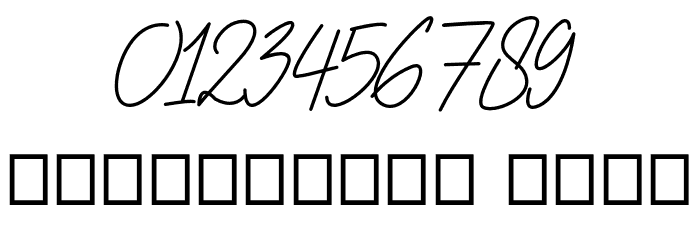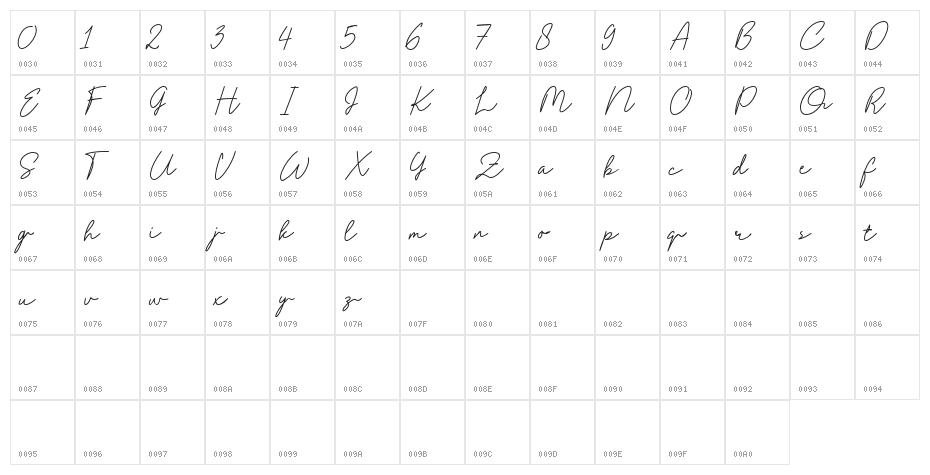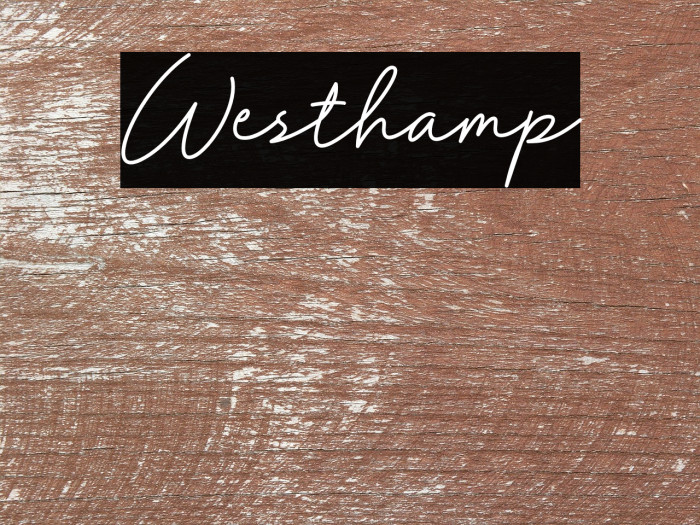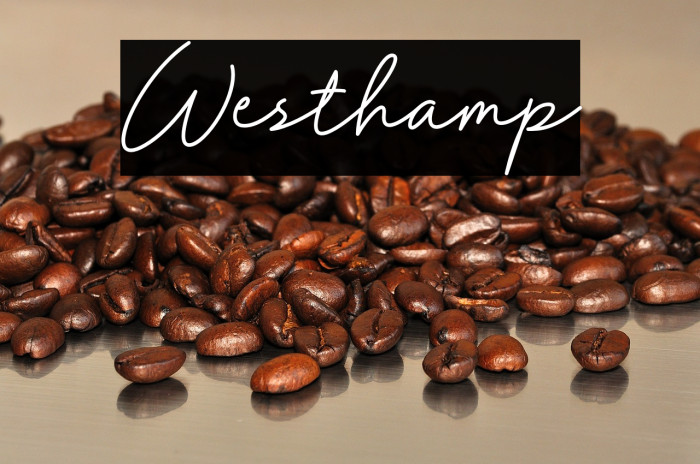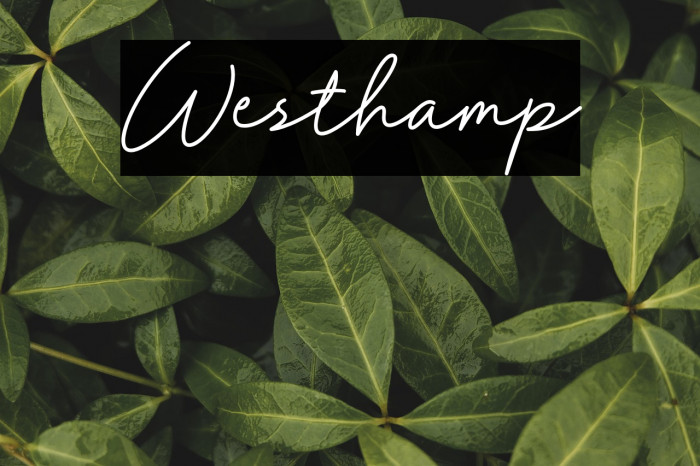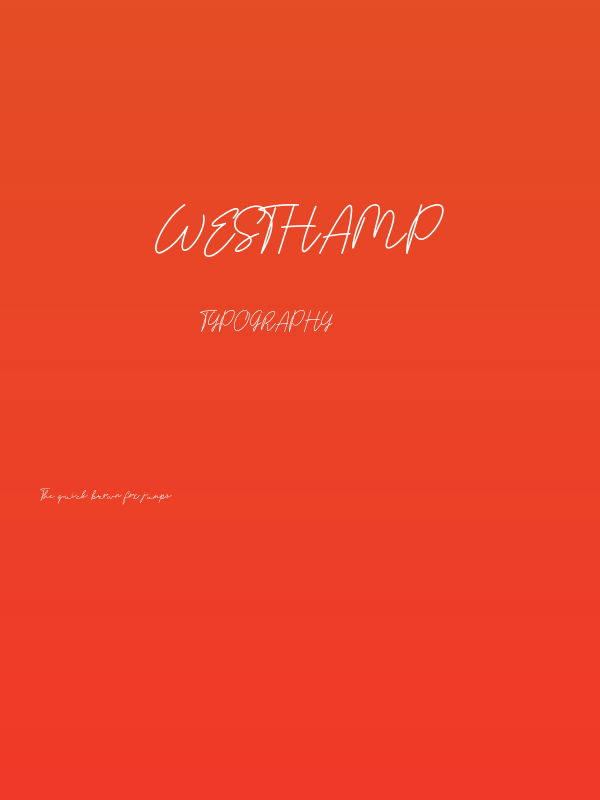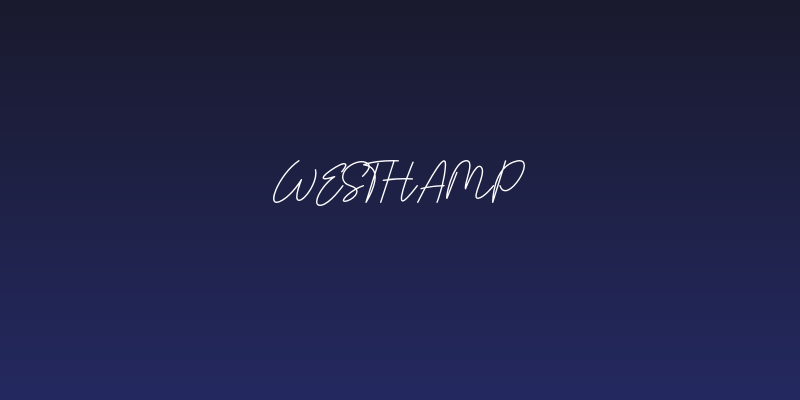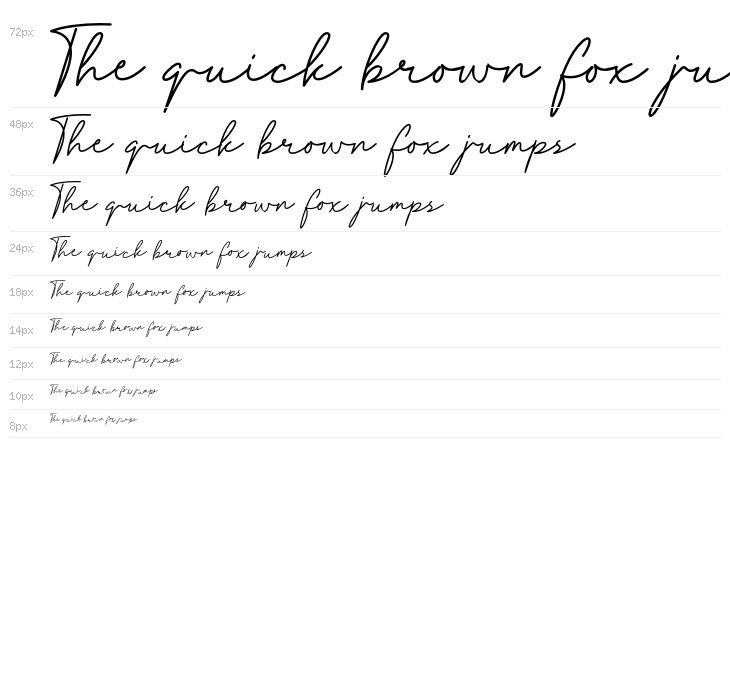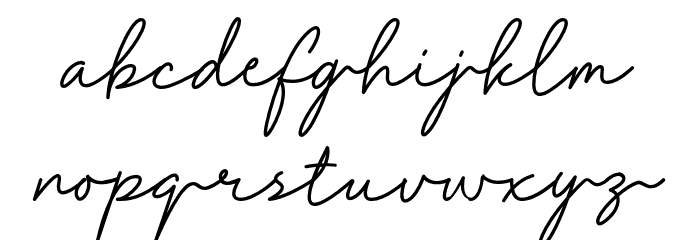
Westhamp Font
Westhamp Description
This font features a flowing, cursive style that mimics elegant handwriting. The letters are connected, creating a seamless and fluid appearance. The uppercase characters are slightly larger and more pronounced, while the lowercase letters maintain a consistent height, enhancing readability. The numerals follow the same cursive style, adding a touch of sophistication. The overall design is graceful and stylish, making it suitable for projects that require a personal or artistic touch. The font's thin strokes and smooth curves give it a delicate and refined look.
Overall StyleElegant
Use CaseLogos, Invitations, Artistic projects
Proposed ProjectsIdeal for wedding invitations, greeting cards, personal branding, and artistic projects.